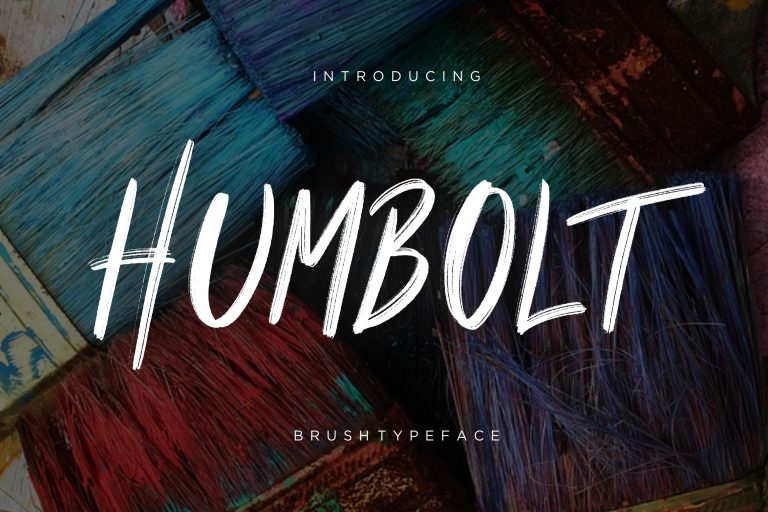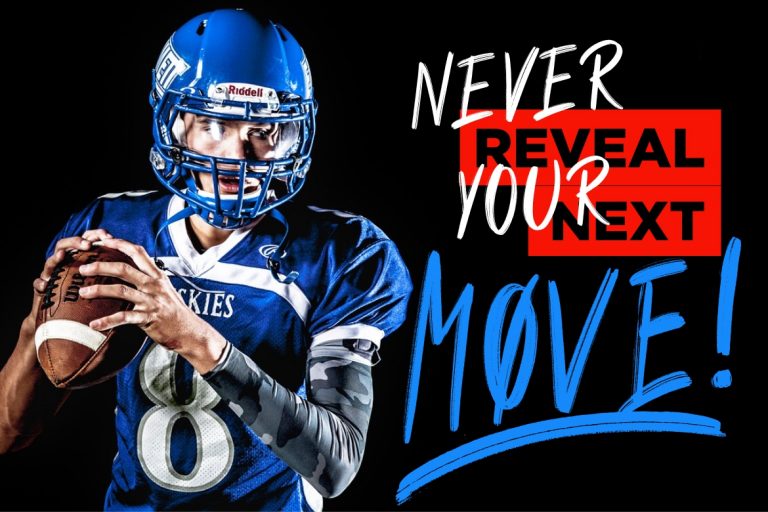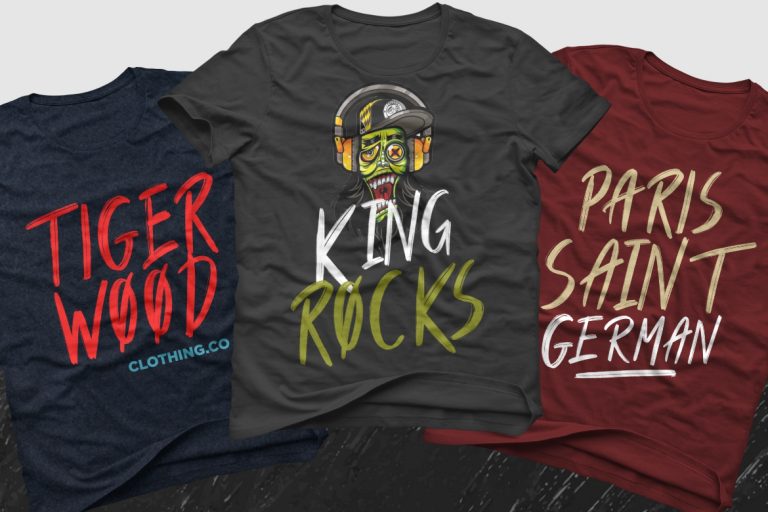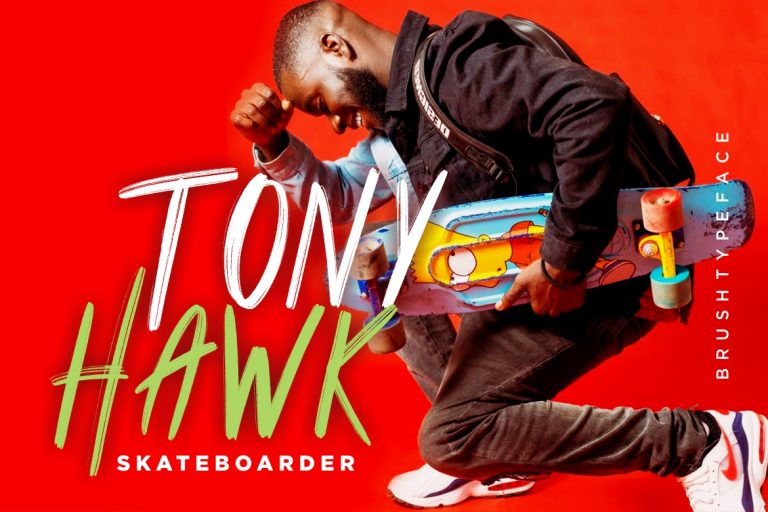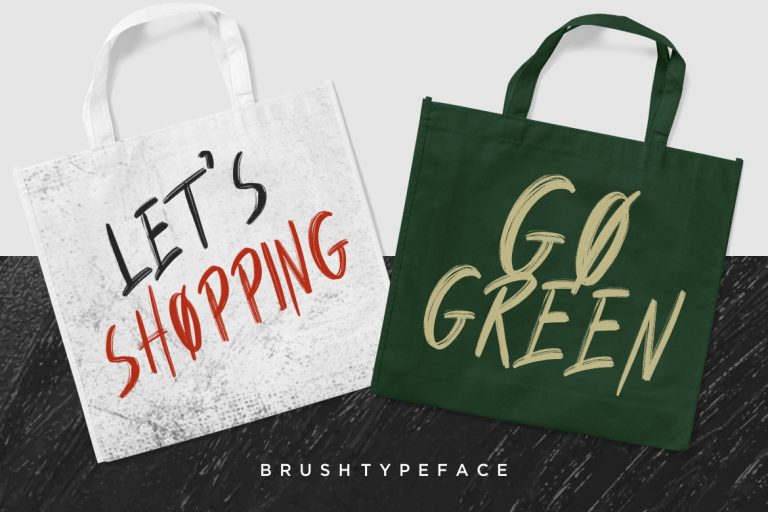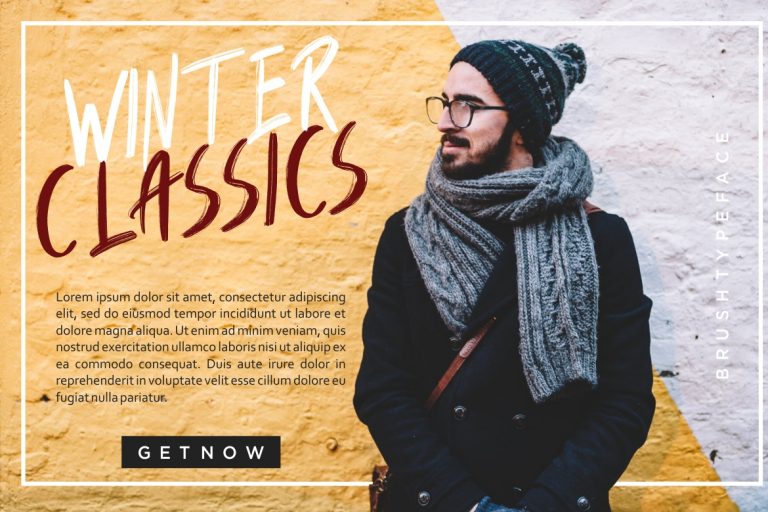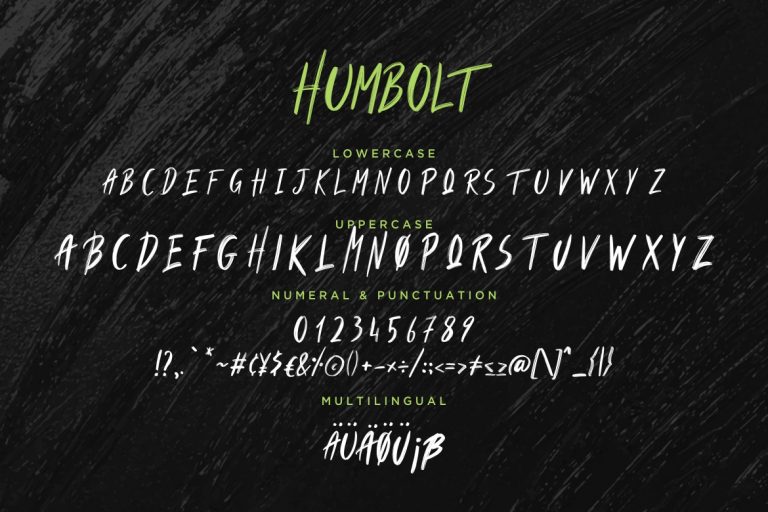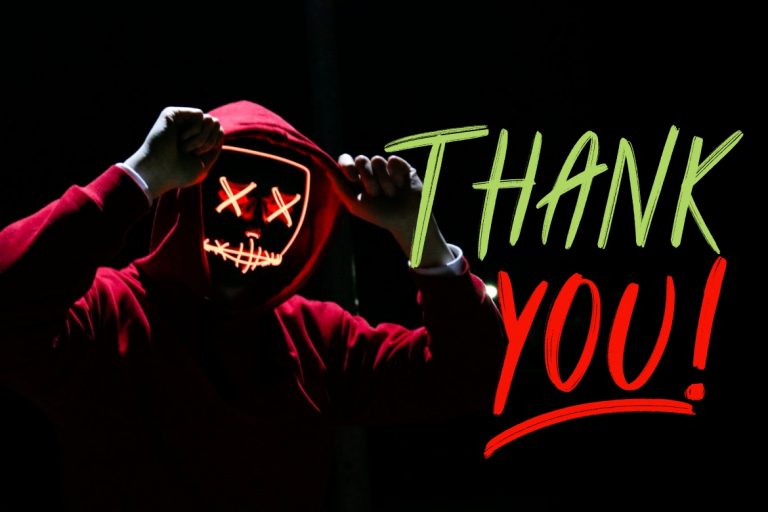
Humbolt Brush Typeface
Humbolt is hand-drawn brush font with bold and masculine style perfect for your amazing projects.
Humbolt is perfect for branding projects, logo, wedding designs, social media posts, advertisements, product packaging, product designs, label, photography, watermark, invitation, stationery and any projects that need handwriting taste.
- Fonts include multilingual support for; ä ö ü Ä Ö Ü ß ¿ ¡